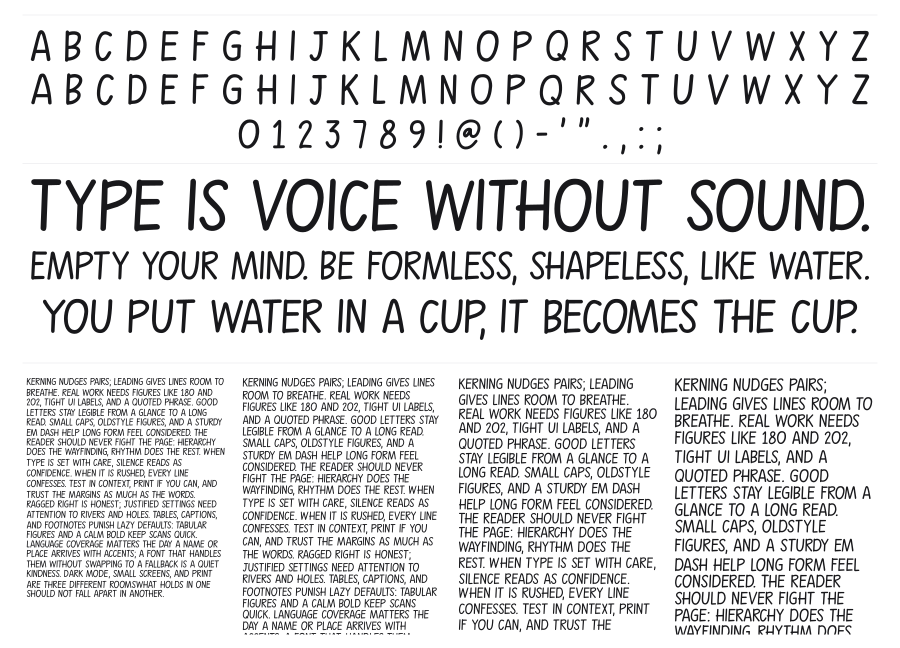
Gumboots
Gumboots is a casual upright hand-lettered font with a natural marker-pen feel and gently irregular strokes. The organic inconsistencies across letters keep it from feeling mechanical, giving it genuine warmth without being sloppy. It works well wherever a design needs to feel human and approachable rather than polished.